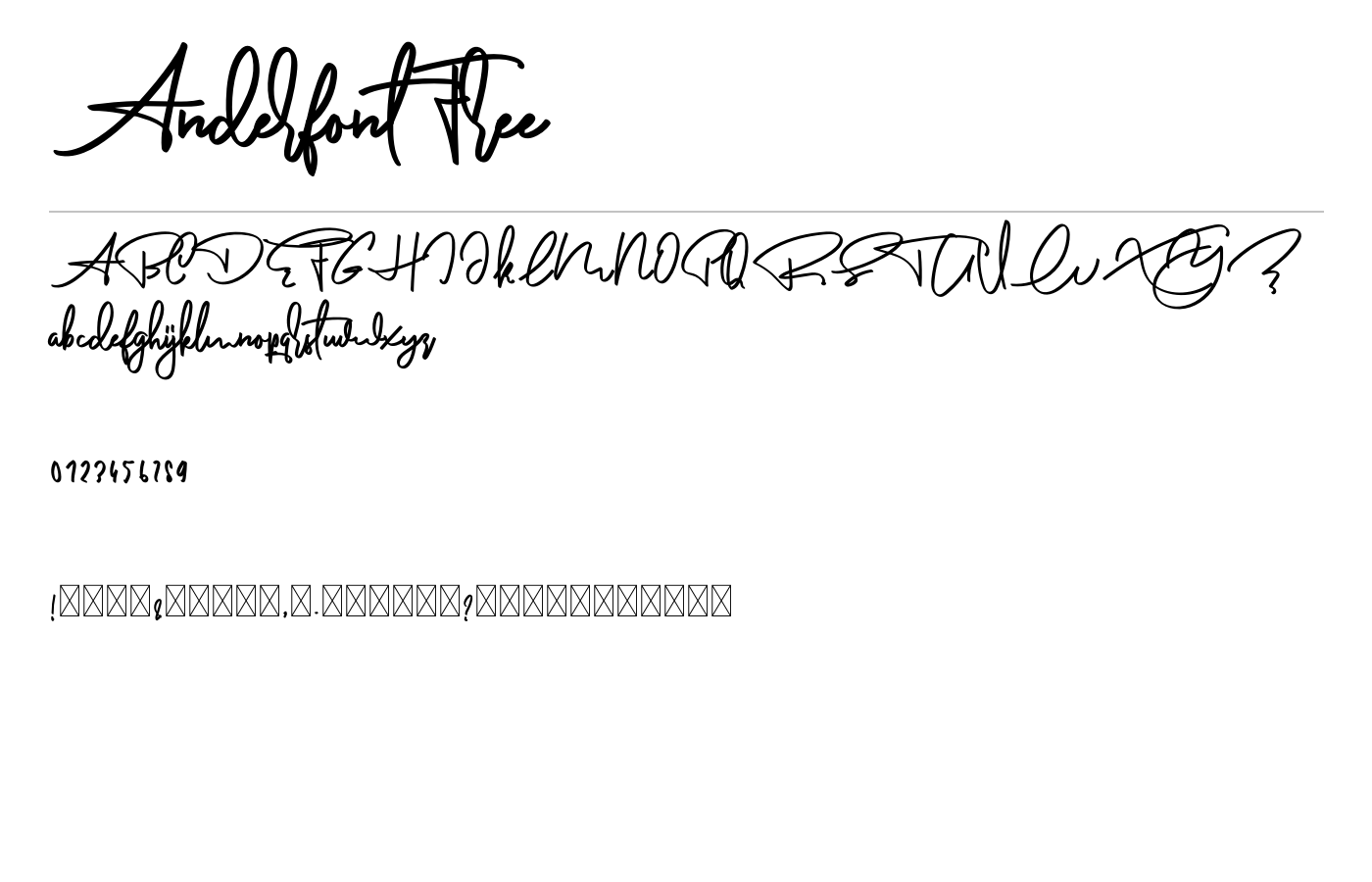
AnderfontFree is a casual, expressive script font that mimics natural handwritten strokes with fluid, flowing lines and varying thickness. Its lively, slightly chaotic letterforms give it a personal, artistic feel, making it ideal for creative projects, branding with a personal touch, or informal headlines where a sense of individuality is key. This font works best when used sparingly to add character and vibrancy rather than for lengthy text, as it prioritizes style over readability.
AnderfontFree Font
About AnderfontFree Font